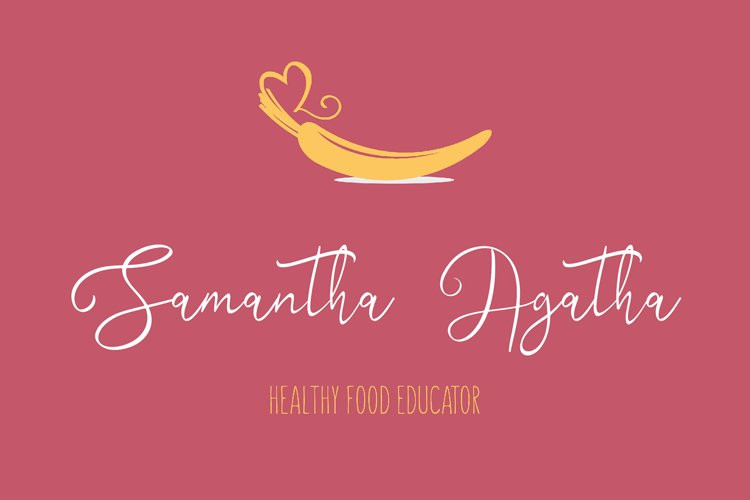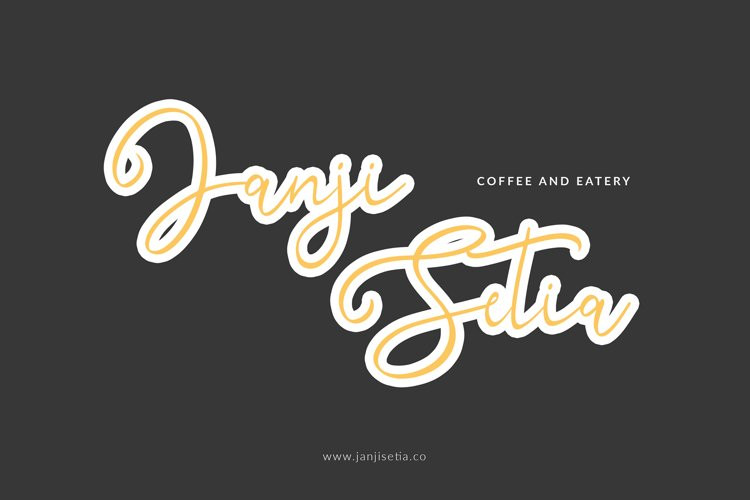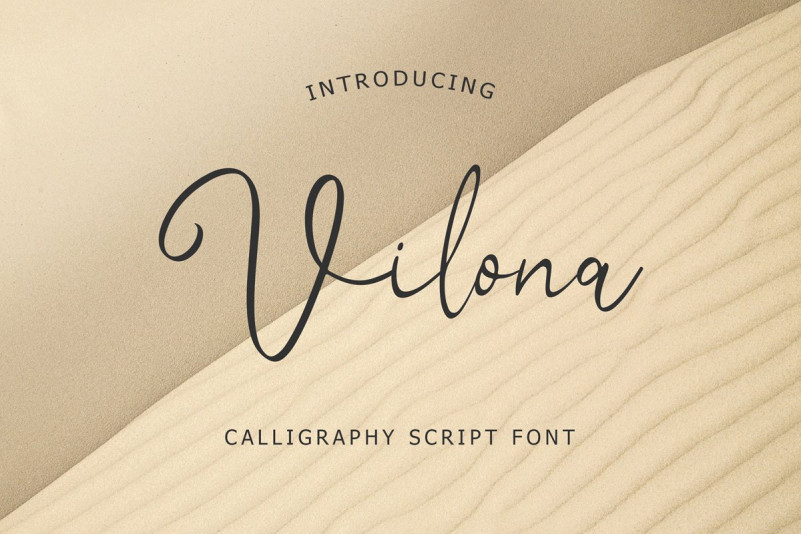
Vilona Font
Vilona Calligraphy Script Font is a modern look of Script font, can make your text appear elegant, luxurious, and modern!
Vilona is perfect for branding projects, logo, wedding designs, social media posts, advertisements, product packaging, T-shirt design, product designs, label, photography, watermark, invitation, stationery, and any projects.